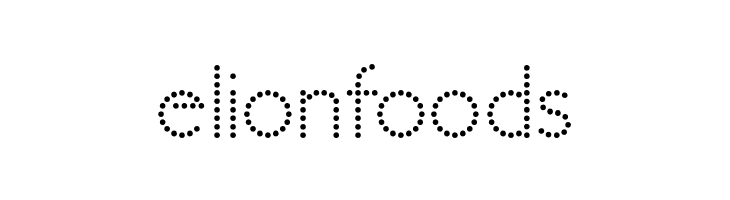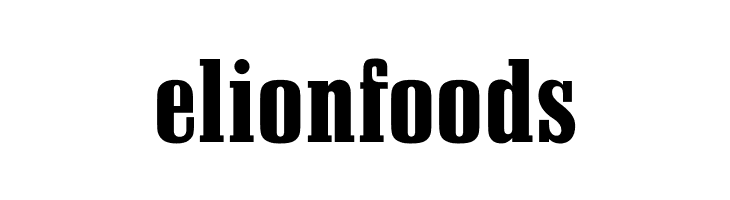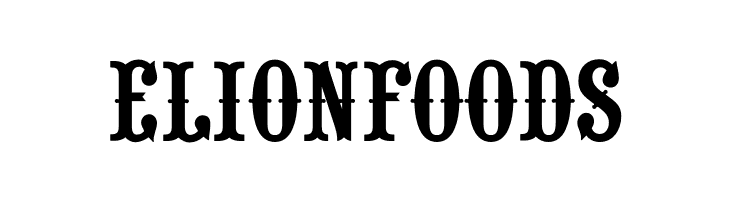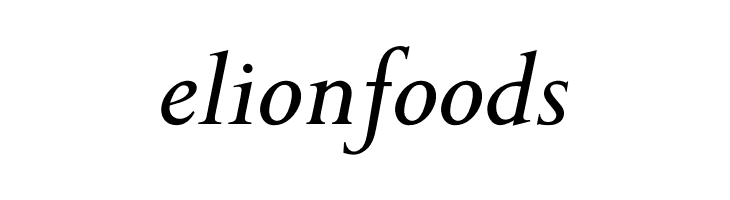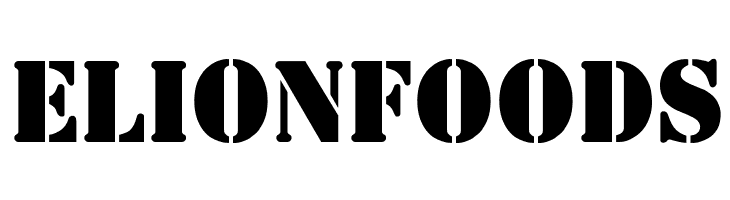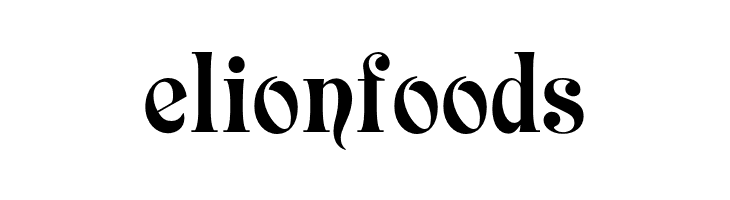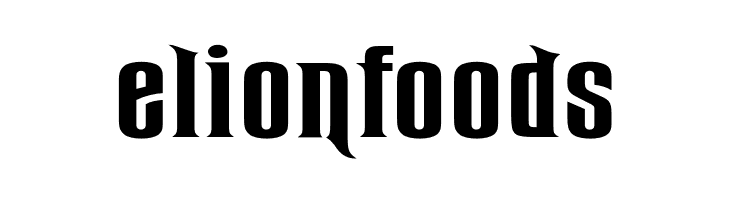
A classic serif font with a light, condensed style and elegant contrast.
A bold, impactful font with strong, thick strokes and a modern appearance.
A playful dotted font with a modern, decorative style.
A bold, high-contrast serif font with a classic yet commanding style.
A bold, slab serif font with a vintage style and strong presence.
A classic italic serif font with elegant proportions and moderate contrast.
A bold, stencil-style font with distinct breaks, ideal for impactful headlines.
A bold, decorative font with modern and vintage elements, featuring intricate curves and flourishes.
Bold, condensed font with strong vertical emphasis and medium contrast.
A bold, angular font with wide characters and sharp serifs.